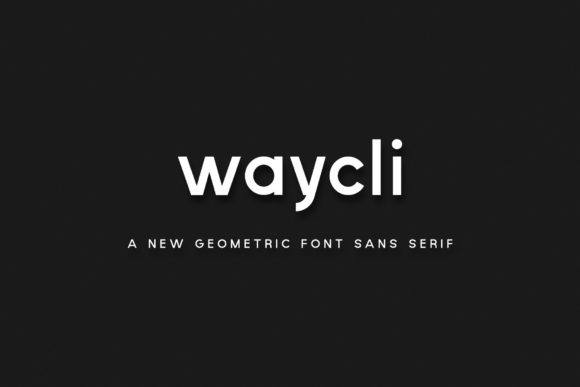
Dive into the realm of eloquence with Waycli Font, a captivating sans serif font that exudes sophistication and charm. This remarkable creation from LogoGreat transcends the boundaries of ordinary typefaces, emerging as an artistic masterpiece that caters to the discerning tastes of designers, writers, and creative visionaries alike.
Unleash your imagination and embark on a typographic adventure with Waycli Font. Its clean lines and contemporary aesthetics lend an air of timeless elegance to any project, be it a thought-provoking website article, an informative business report, or a captivating marketing campaign. Let Waycli Font amplify your message and leave an enduring impression on your audience.
With Waycli Font at your fingertips, you gain access to a versatile typographic toolbox that empowers you to craft visually striking headlines, compelling body text, and captivating marketing materials that resonate with your target audience. Its meticulously crafted letterforms radiate clarity and legibility, ensuring effortless readability even in the most complex layouts.
Waycli Font's innate versatility extends beyond mere aesthetics, making it an ideal choice for a wide range of applications. Whether you're crafting visually stunning posters, engaging advertisements, or captivating multimedia presentations, Waycli Font seamlessly adapts to your creative vision, adding a touch of sophistication and polish to every design endeavor.
Immerse yourself in the world of corporate design with Waycli Font as your trusted ally. Its refined character lends an air of professionalism and credibility to business correspondence, reports, and presentations. Elevate your brand's image and convey a sense of authority with Waycli Font, leaving a lasting impression on clients and colleagues alike.